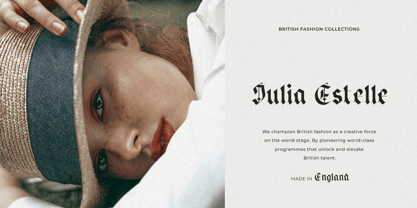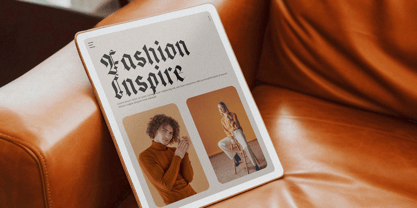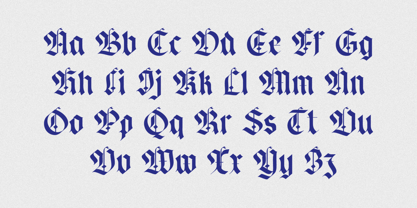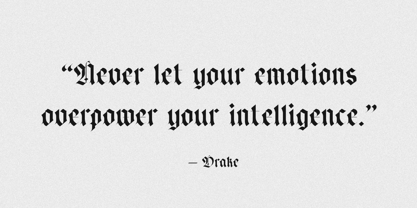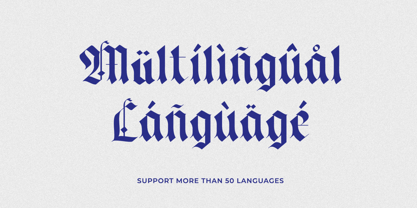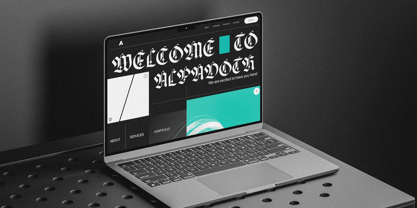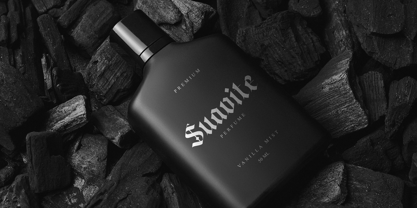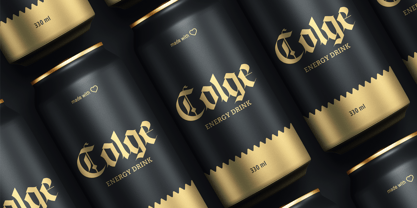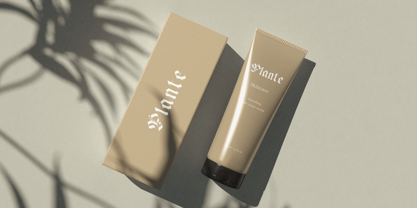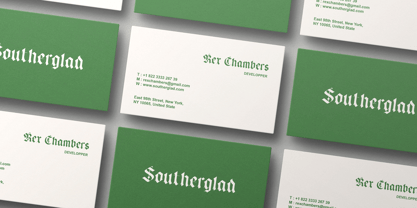
Engourdi
by Heinzel Std
The Engourdi Font Family was designed by Nofi Sofyan Hadi and published by Heinzel Std. Engourdi contains 1 styles. More about this family
Engourdi is a refined blackletter font that captures the charm of medieval-inspired typography with a modern twist. Its sharp strokes, intricate curves, and balanced proportions make it perfect for branding, logos, packaging, posters, book covers, invitations, and editorial layouts. Engourdi adds a touch of elegance and authority to any design, making it ideal for luxury branding, vintage projects, and artistic creations. With its versatility and strong visual impact, this font is well-suited for both print and digital designs. Bring your creative vision to life with the timeless beauty of Engourdi Blackletter Typeface.